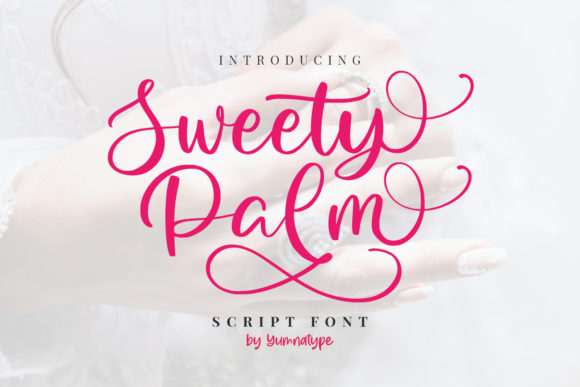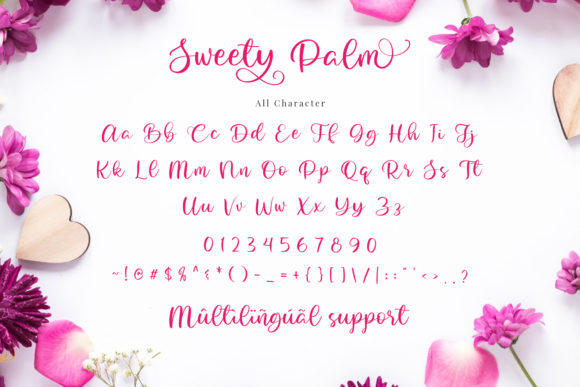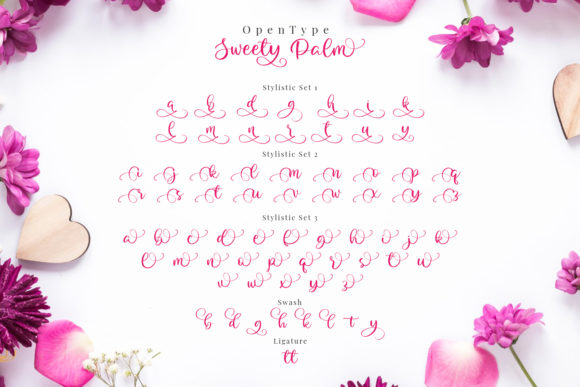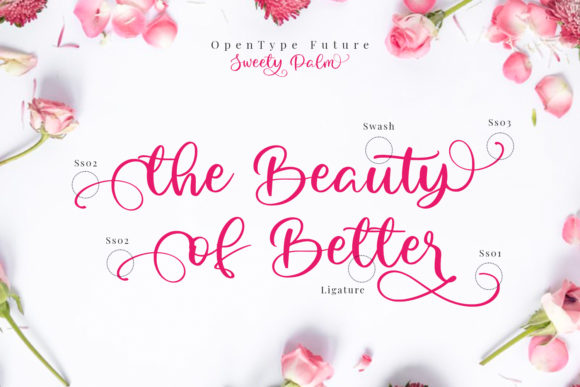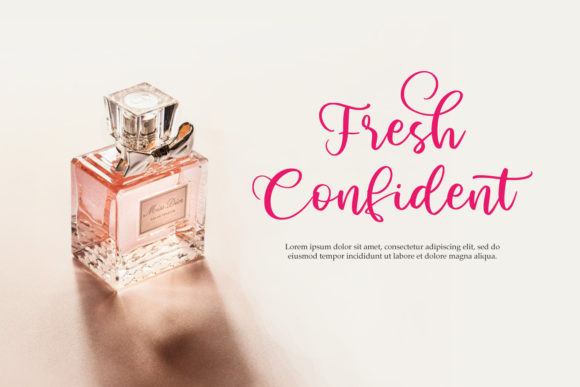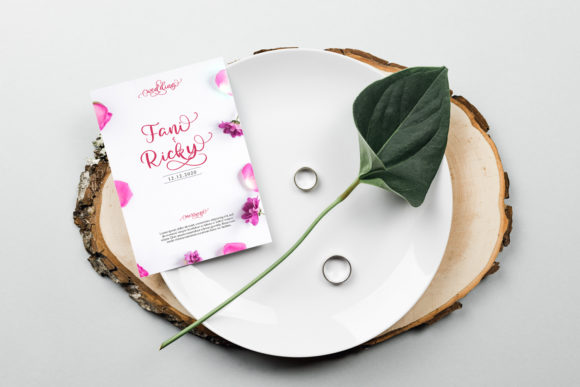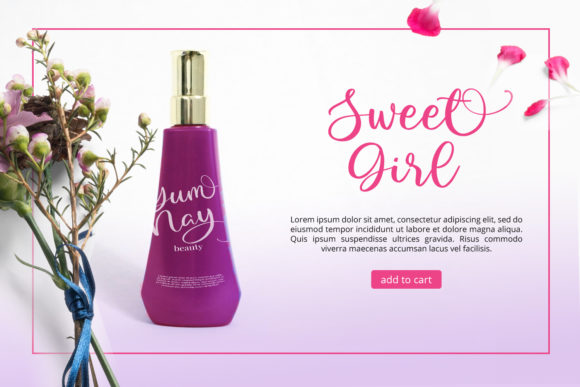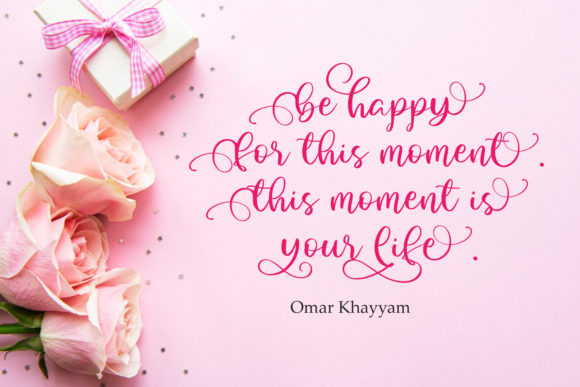
Sweety Palm Font
About Sweety Palm Font
Sweety Palm is an elegant handwritten font, made for any professional project branding. It is the best for logos, branding and quotes.